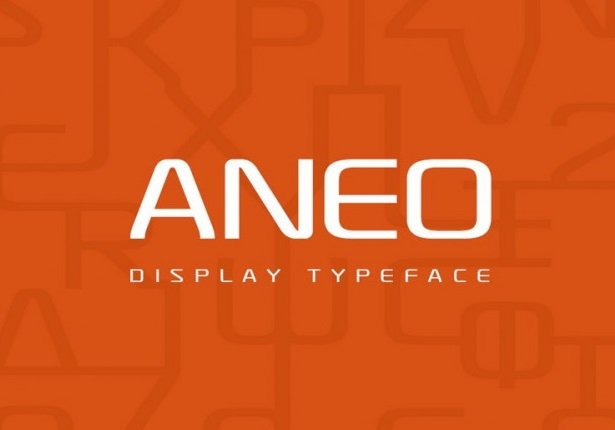
Aneo Sans Serif Font is a minimal & modern Sans Serif / Display typeface which brings serenity. Aneo will be best suited for creating logotypes, branding, headlines, corporate identities, marketing materials for web & print as well as any type of minimal designs. The typeface comes in Regular, Bold, Italic, Bold Italic variants plus a secondary version using wider characters with support of basic Latin and Greek.